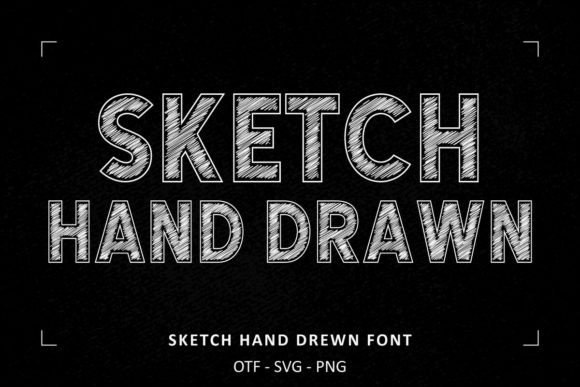
Sketched Hand Drawn: A Font with Authentic Character
There's a particular quality in a design that feels genuinely human. It's the slight imperfection of a line, the texture of a pencil on paper, the unmistakable sense that a person's hand was directly involved. This is the core appeal of Sketched Hand Drawn. It's not merely a handwritten font; it's a carefully crafted premium font that captures the authentic, energetic vibe of a real sketch. The letterforms have a dynamic, slightly uneven quality that immediately conveys creativity and approachability. Unlike overly polished typefaces, it brings a level of personality that feels both intentional and effortlessly cool.
As a display font, Sketched Hand Drawn is built to command attention in headlines and logos. Its charm lies in its versatility within that niche. It can feel playful for a children's brand, rustic for a coffee shop's identity, or edgy and modern for a music festival poster. The key is understanding its personality. This isn't a font for body text in a technical manual; it's for moments where you want to inject a strong, human touch. The slightly textured edges and inconsistent baselines mimic the natural flow of a marker or pen, making it an excellent tool for logo design where you need a mark that feels unique and hand-crafted from the first glance.
Where This Creative Font Truly Shines
Choosing the right typeface is about matching its personality to your project's goals. Sketched Hand Drawn excels in environments where authenticity and visual energy are paramount. Think about a indie bookstore's window display, a craft brewery's bottle label, or the cover of a cookbook celebrating homemade recipes. In these contexts, the font isn't just text; it's part of the story. For packaging design, it can make a product feel artisanal and small-batch, directly appealing to consumers seeking something non-corporate.
In the digital realm, its impact is just as potent. A web design hero section using Sketched Hand Drawn for its main headline can immediately set a creative, relaxed tone. It works beautifully for social media graphics, especially for quotes, announcements, or calls-to-action where you want to stop the scroll. The font's inherent texture ensures it stands out against the clean, geometric sans-serifs that dominate feeds. For bloggers and content creators, it's a fantastic design asset for creating featured images that feel more personal and engaging than standard stock typography.
Practical Guidance for Implementation
Using a creative font like this effectively requires some strategic thought. First, consider readability. While stunning at large sizes, its sketchy details can become muddy at small point sizes or in long paragraphs. Reserve it for headlines, sub-headlines, and short, impactful phrases. A smart font pairing strategy is essential. Match Sketched Hand Drawn with a clean, neutral sans serif font for body text. This creates a pleasing contrast, allowing the display font to do its job without overwhelming the reader. A simple serif font can also work for a more classic, editorial feel in publishing or editorial design.
Before you commit, test the font thoroughly. Look at the full character set. Does it include the punctuation, numbers, and symbols you need? Check for stylistic alternates or ligatures—these features are common in quality premium font packages and can help you customize the look, avoiding repetitive letter shapes that can break the hand-drawn illusion. Always test it in your actual design mockups, not just in a font preview tool. See how it interacts with your color palette and imagery.